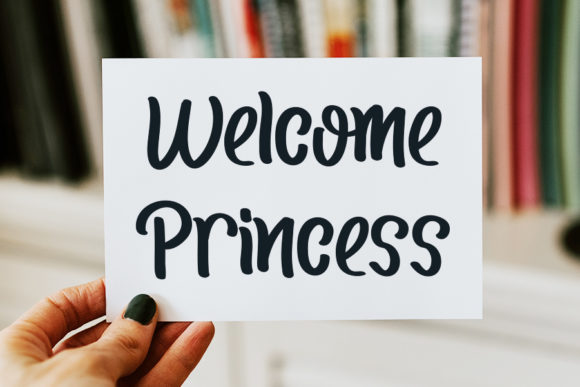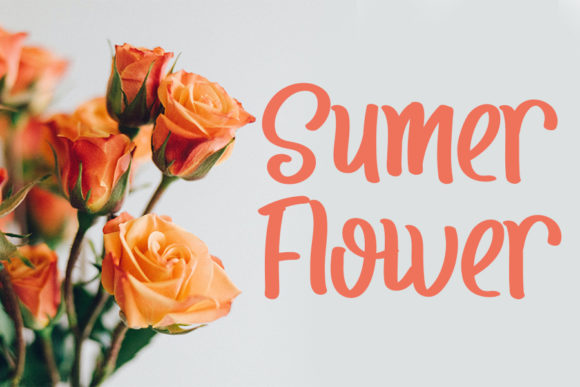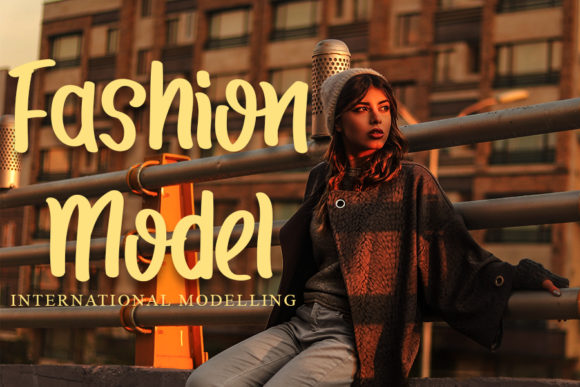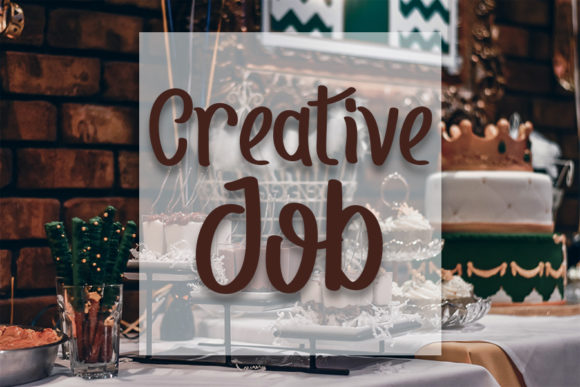
Hello Olive Font
About Hello Olive Font
Hello Olive is a casual and relaxed script font. Fall in love with its incredibly versatile style and use it to create gorgeous wedding invitations, beautiful stationary art, eye-catching social media posts, and much more!